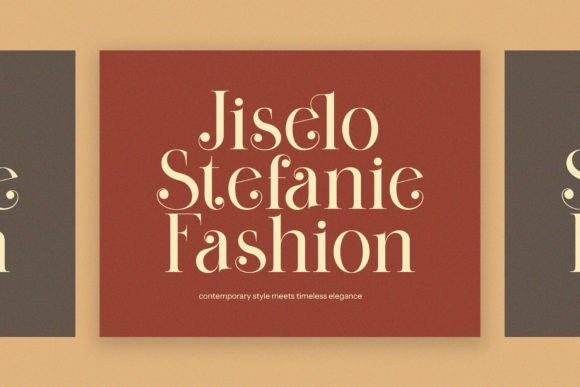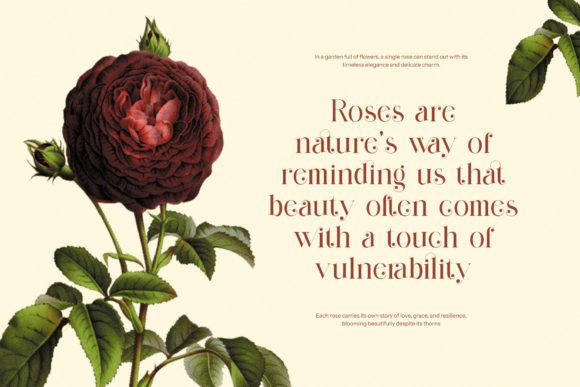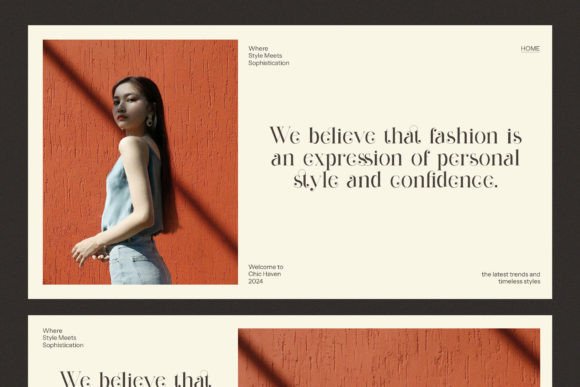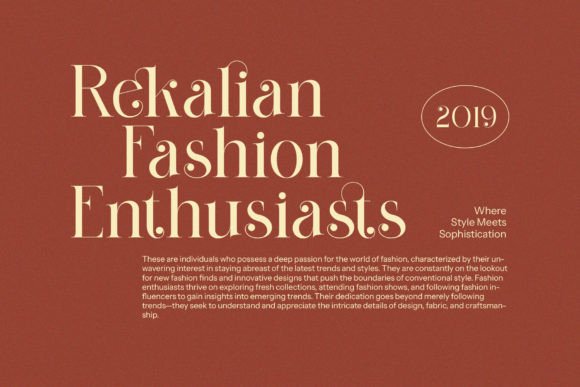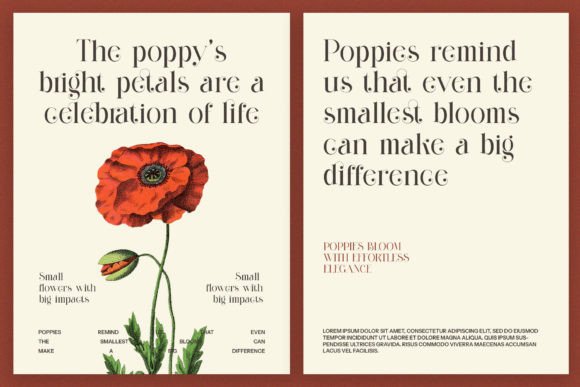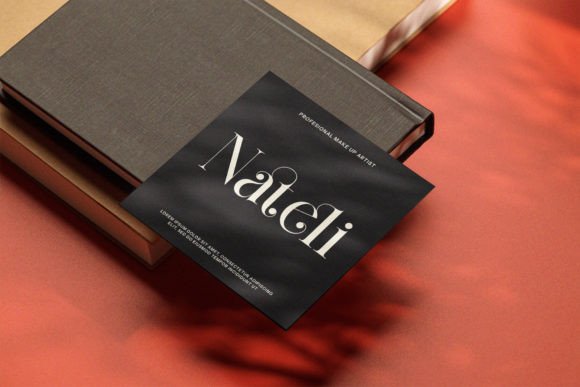
The Perfect Brushstroke: Introducing Gilgha Font
There’s nothing quite like the feeling of bringing a design to life, and for many creatives, that moment is when the perfect font is finally found. The search is over, and the excitement begins – the possibilities are endless. For designers seeking to elevate their work to the next level, look no further than the elegant Gilgha Font.
Designed with luxury and sophistication in mind, Gilgha Font is the ultimate choice for branding and logo designs. Its refined aesthetic is sure to impress, making it a valuable addition to any designer’s toolkit. With its numerous ligature and alternate options, Gilgha Font offers unparalleled versatility, allowing designers to craft unique and captivating designs that truly stand out.
Gilgha Font Key Features
- Unique Characteristics: Gilgha Font features a unique blend of modern and traditional elements, with distinctive letterforms and a wide range of language support, making it an ideal choice for designers and typographers.
- Font Weight: Gilgha Font is available in a range of font weights, from light to bold, allowing designers to achieve a variety of visual effects and moods in their designs.
Gilgha Font Review
Overall, I’d say Gilgha is a unique and eye-catching font that can add some personality to your designs. Here are some of its strengths:
- ✨ The font’s bold and playful feel makes it perfect for creative and whimsical projects, like children’s books or magazines.
- ✨ The font’s versatility allows it to work well in a variety of contexts, from headings to body text.
- ✨ The font’s character set includes a wide range of languages, making it a great choice for international projects.
- ⚠️ The font’s bold style can be overwhelming in some contexts, so use it sparingly to avoid visual fatigue.
- ⚠️ The font’s character set may not be as comprehensive as some other fonts, which could be a problem for projects that require specific symbols or glyphs.
Overall, I’d say Gilgha is a solid choice for designers who want to add some personality to their projects. While it may have some limitations, its unique feel and versatility make it a great option for the right projects.
Tips for Getting the Most Out of Gilgha Font
For the best results, use Gilgha font in conjunction with bold or italic styles to add emphasis. Experiment with different font sizes to create visual hierarchy. Gilgha font pairs well with minimalist designs and modern color schemes.
Common Use Cases for Gilgha Font
Gilgha font is commonly used in modern branding, minimalist logos, and editorial designs. It’s also suitable for use in digital products, such as apps and websites, due to its clean and modern aesthetic.